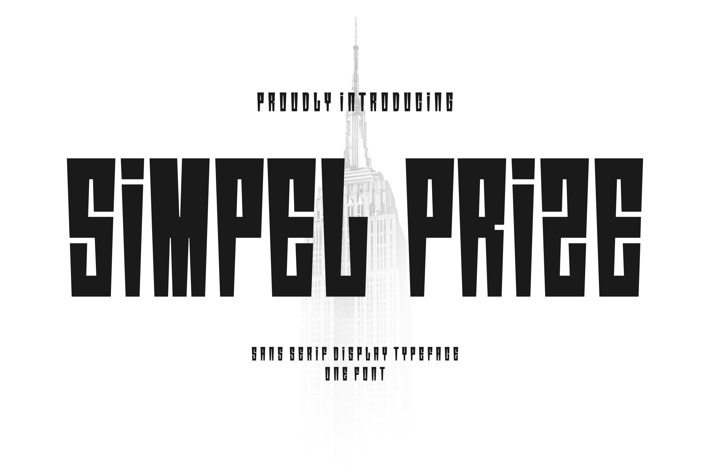
Simpel Prize - Sans Serif Display Typeface
Introducing our new product Simpel Prize Font - Sans Serif Display Typeface
Simpel Prize Font- Modern Font is a bold and authentic display font. The font is suitable for any branding project like logo,
t-shirt printing, esport, and many more. outstanding in a wide range of contexts.
* Simpel Prize Uppercase